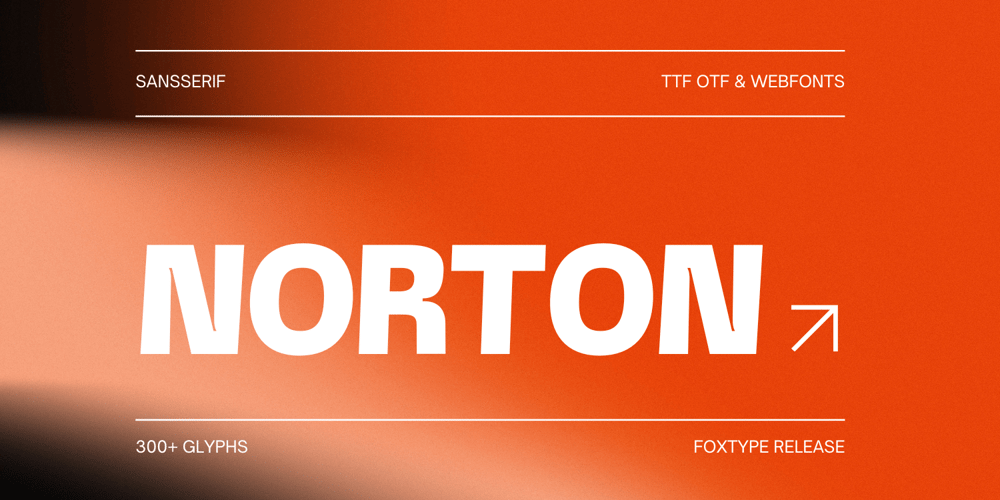
Norton Typeface Font Family was designed by Evin Tony and published by FoxType. Norton Typeface contains 4 styles and family package options. Introducing Norton Branding Typeface – the ultimate choice for modern posters, magazine covers, banners, and branding projects. Specially designed for 2024 trends, Norton offers a sleek and contemporary style with elegant curves that make your designs stand out.This versatile typeface includes four distinct weights: Regular, Medium, Semibold, and Bold, providing you with the flexibility to create eye-catching visuals that leave a lasting impression. Perfect for any creative project, Morton Branding Typeface ensures your work exudes professionalism and sophistication.Enhance your design portfolio with Norton Branding Typeface and experience the perfect blend of modern aesthetics and functional versatility. Make a bold statement in the marketplace with this stylish and adaptable font. Get Norton Branding Typeface today and elevate your designs to new heights!